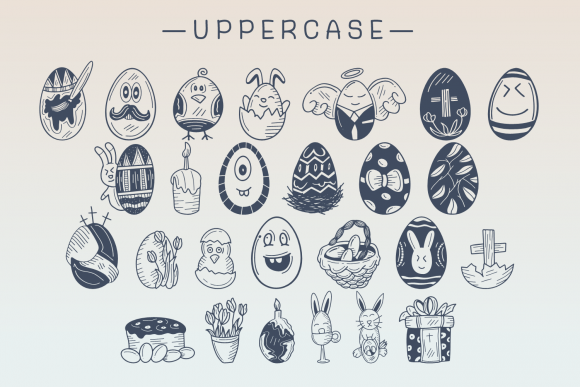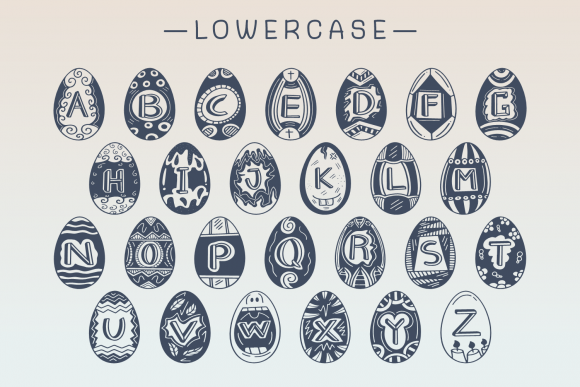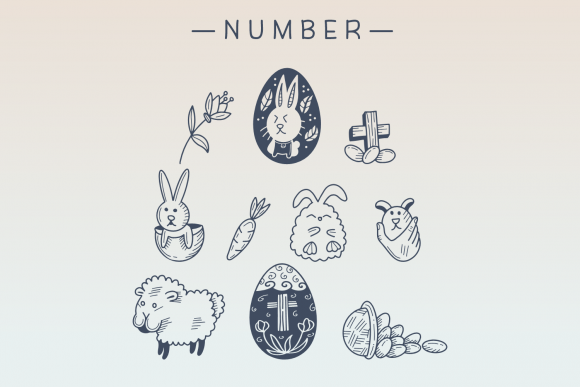
Easter Font
About Easter Font
“Easter” is an incredibly cool and fun dingbats font that is perfect for adding a festive touch to your designs. With its playful Easter-themed characters, this font will bring joy and creativity to any project. Here are some creative ideas for using the “Easter” font:
1. Easter Cards and Invitations: Design adorable Easter cards or invitations using the characters from the “Easter” font. You can create cute Easter bunny greetings, egg-shaped invitations, or even Easter-themed party flyers. The font’s playful characters will add a whimsical and fun vibe to your designs.
2. Social Media Graphics: Spice up your social media posts during the Easter season by incorporating elements from the “Easter” font. Use the font’s characters to create eye-catching graphics for Easter promotions, giveaways, or themed content. From Easter eggs to bunnies and chicks, the font offers a variety of options to choose from.
3. Easter-themed Crafts: Whether you’re creating digital or physical crafts, the “Easter” font can be a great resource. Use the font’s characters as stencils for Easter egg decorating, as cutouts for scrapbooking projects, or as designs for DIY Easter-themed t-shirts or tote bags.
4. Educational Materials: If you’re an educator or involved in creating educational resources, the “Easter” font can be a fun addition. Use the font’s characters to create worksheets, flashcards, or classroom decorations with an Easter theme. It can make learning activities more engaging and enjoyable for students.
5. Website or Blog Design: Give your website or blog a festive touch during the Easter season by incorporating the “Easter” font. Use the font’s characters as decorative elements in your headers, sidebar widgets, or as part of your logo. It can help create a cohesive and themed look for your online presence.
6. Party Decorations: If you’re planning an Easter party or event, the “Easter” font can be a valuable asset. Use it to create banners, signs, cupcake toppers, or place cards with Easter-themed messages. The font’s playful characters will add a delightful touch to your party decorations.
Remember to play around with the size, color, and arrangement of the “Easter” font characters to create unique and visually appealing designs. Additionally, always respect the font’s licensing terms and ensure you comply with any usage restrictions when using the font in commercial projects.
In summary, “Easter” is an incredibly cool and fun dingbats font that can elevate any creation with its playful Easter-themed characters. Use it in Easter cards, social media graphics, crafts, educational materials, website designs, and party decorations to add a festive and joyful touch. Let your creativity shine and have fun incorporating the “Easter” font into your projects.